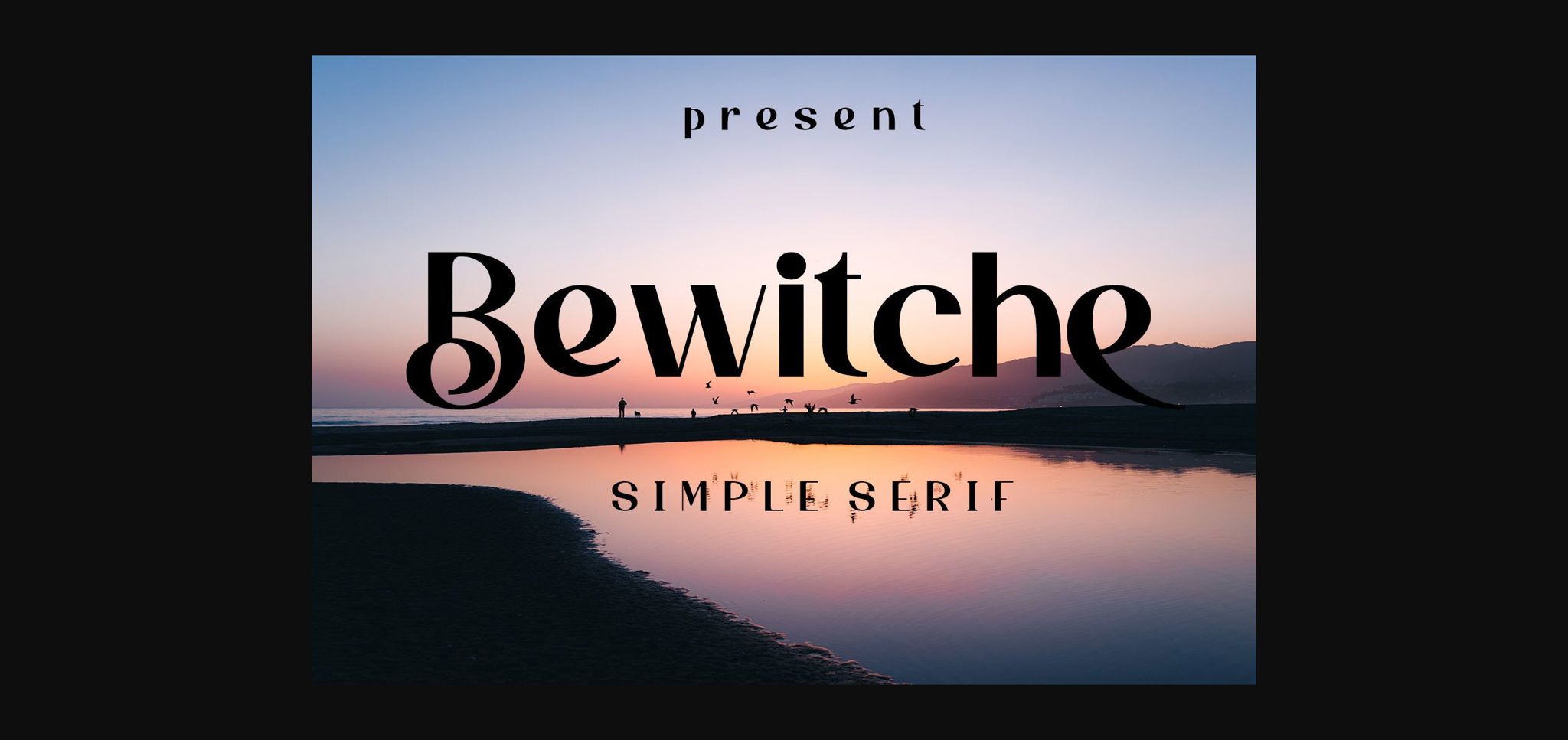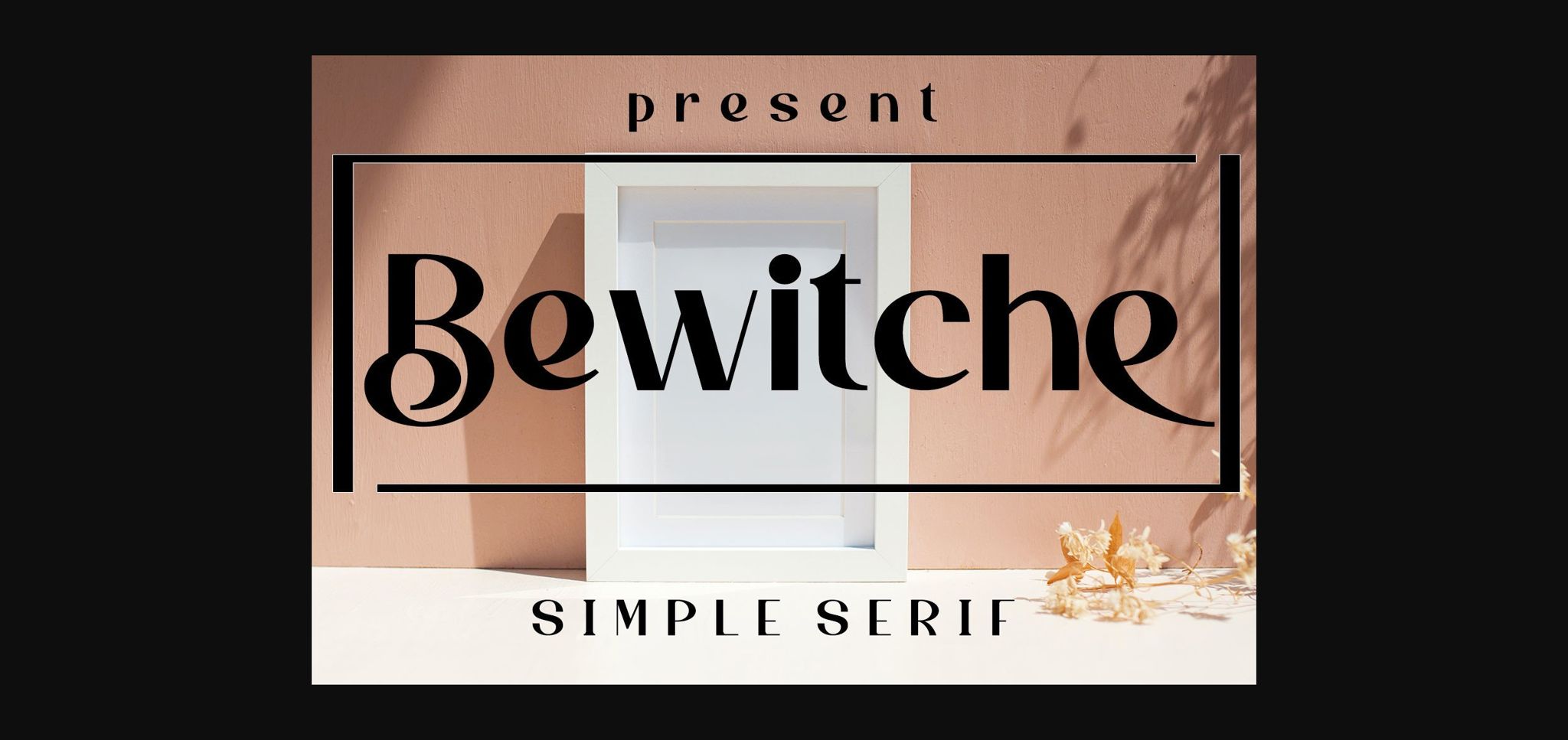
About Bewitche Font
Bewitche is a classy and elegant sans serif font. Masterfully designed to become a true favorite, this font has the potential to bring each of your creative ideas to the highest level!